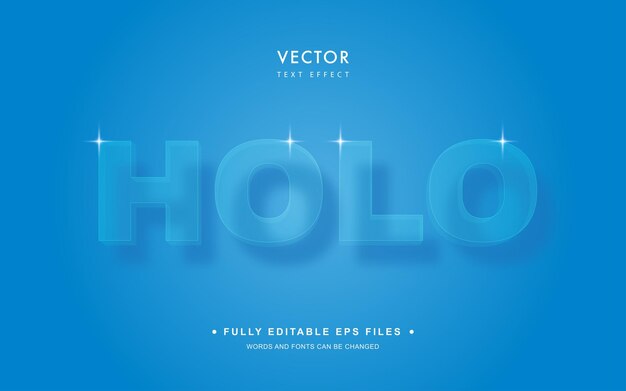
cool editable 3d text effect styles mockup concept modern vibrant 3d text effect editable font style
Cool editable 3d text effect styles mockup concept modern vibrant 3d text effect editable font style